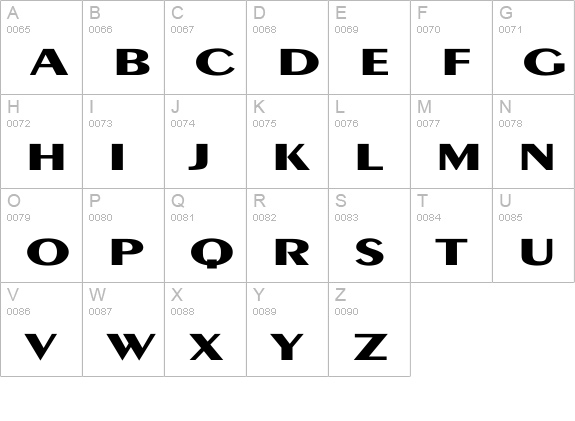
Exotic-Bold Ex Font Details
Exotic-Bold Ex is a strong, high-contrast variant in the Exotic typeface family \xE2\x80\x94 well suited to headlines, attention-grabbing titles, and strong calls-to-action.
Exotic-Bold Ex font is a striking and stylish typeface that exudes a sense of exotic allure. With its bold and eye-catching design, this font is perfect for making a statement in your projects. The unique and intricate details of Exotic-Bold Ex font add a touch of sophistication and elegance to any text. Whether you're designing a logo, poster, or website, this font is sure to leave a lasting impression. The best part? Exotic-Bold Ex font is completely free to download at FontsMarket.com. You can easily access this stunning font and enhance your design projects without any cost. Don't miss out on the opportunity to add a touch of exotic flair to your work with Exotic-Bold Ex font. Download it today and elevate your designs to the next level.